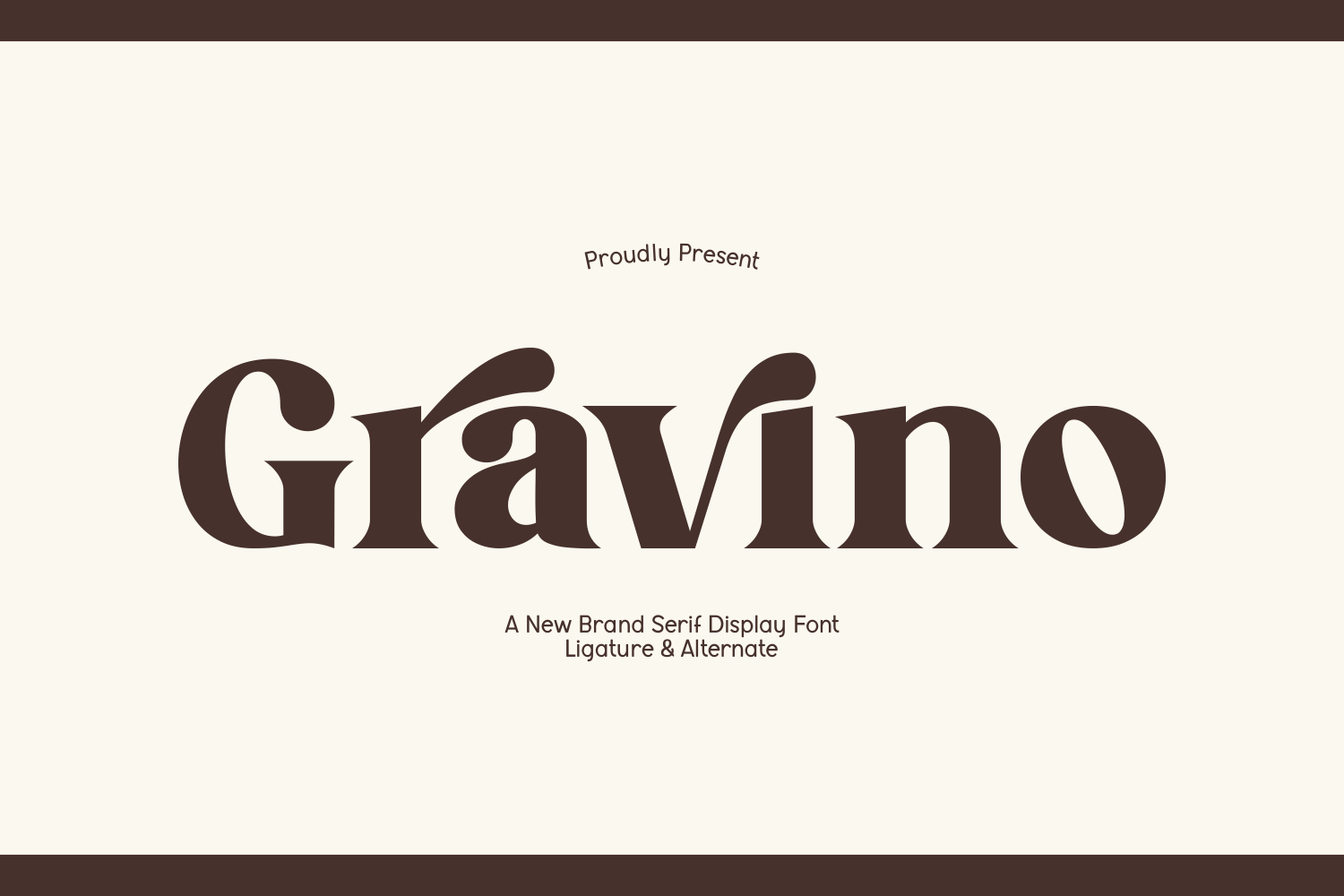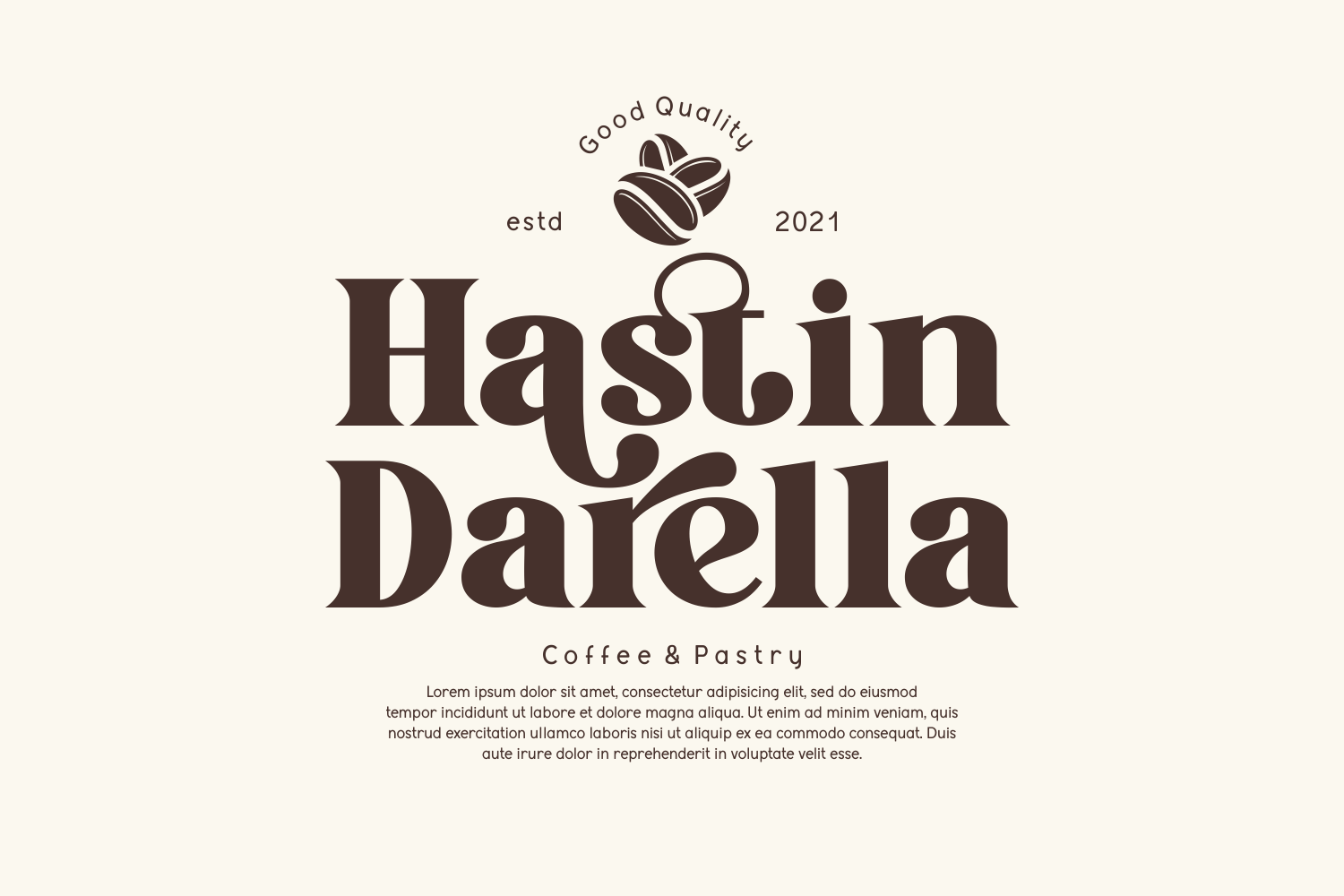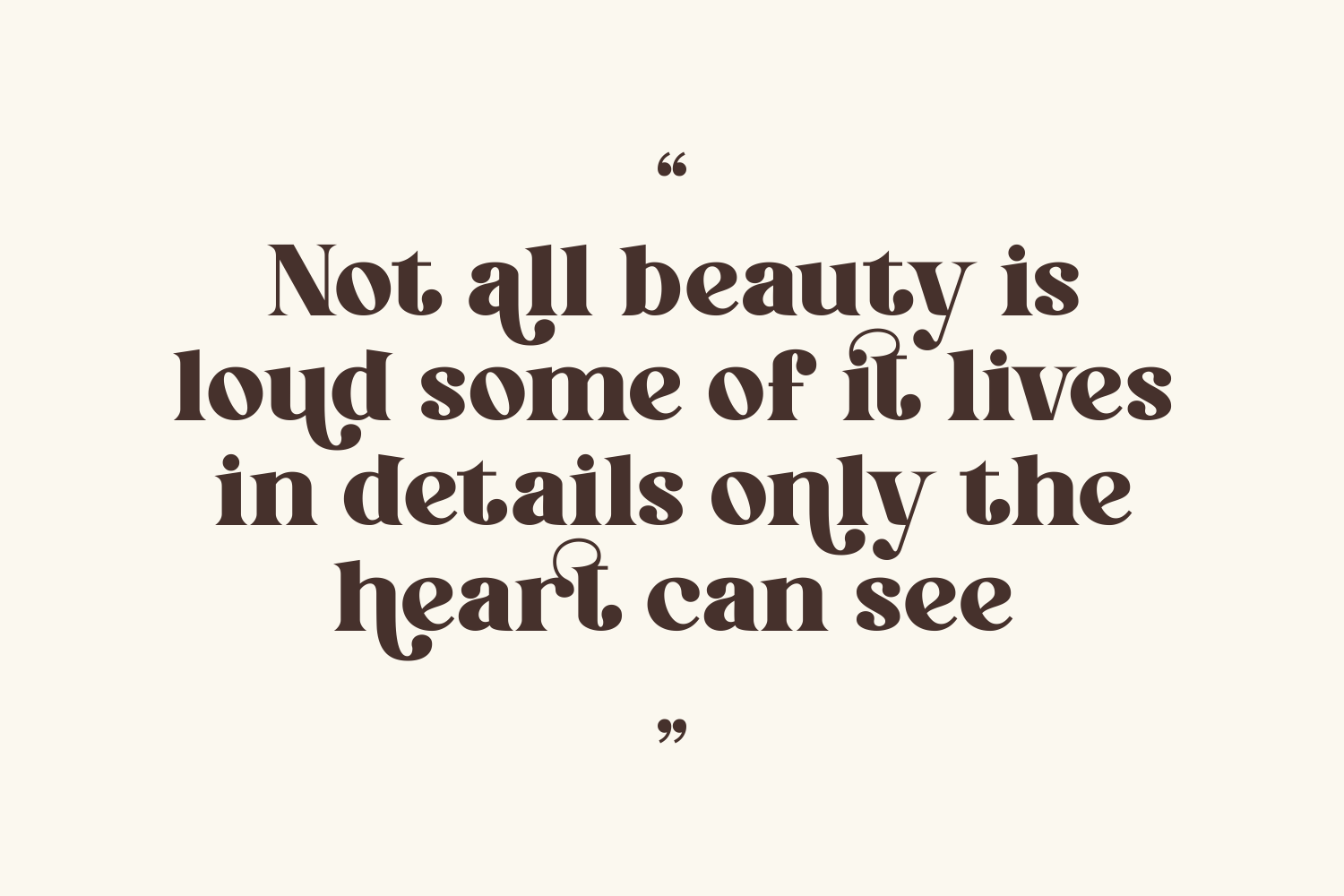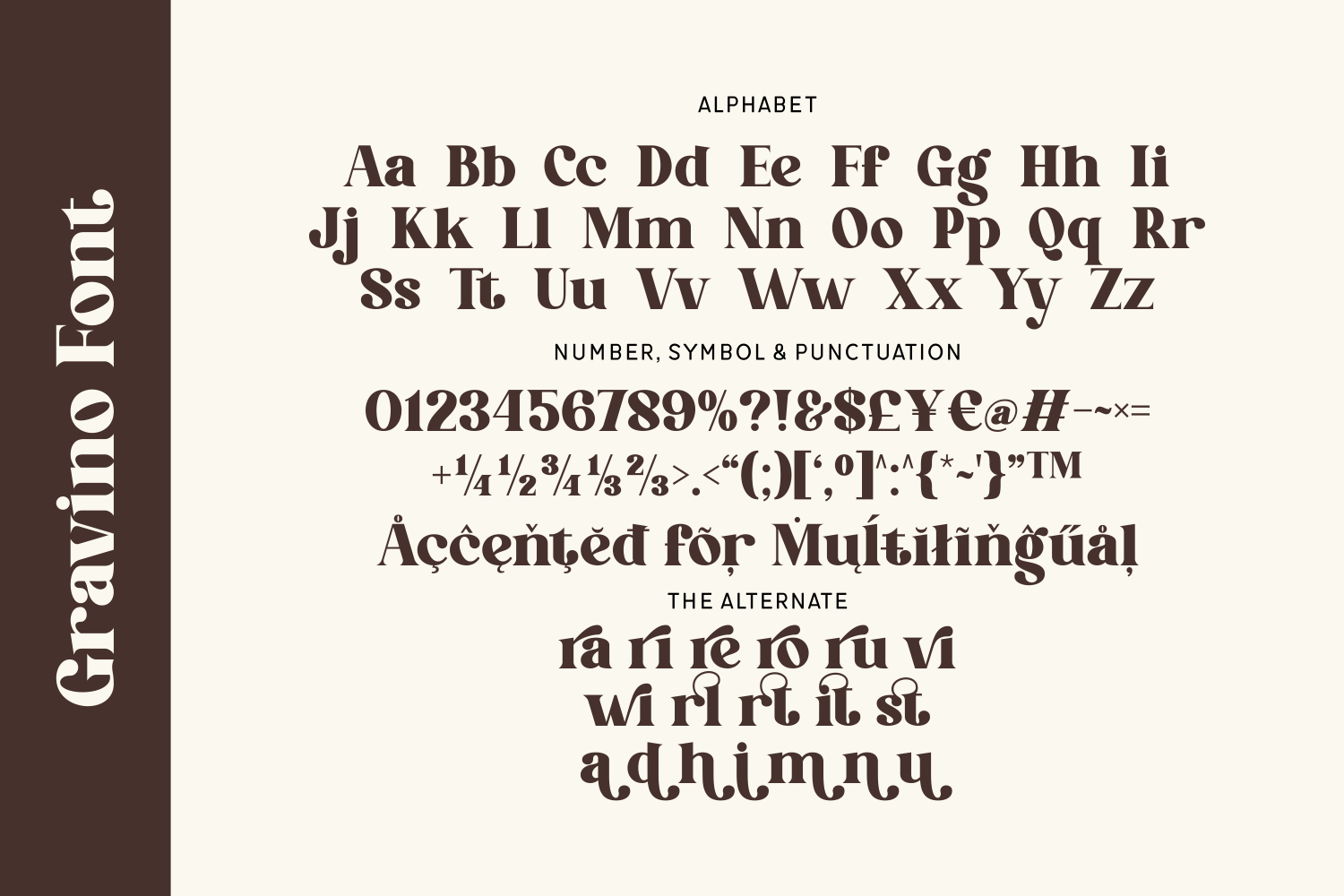
Gravino is a stylish serif display font that blends bold curves with unique alternates and ligatures. Perfect for modern branding, packaging, and logo design, it adds a fresh, artistic twist to classic typography.